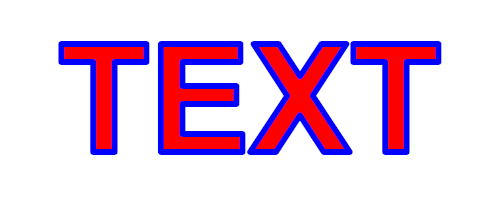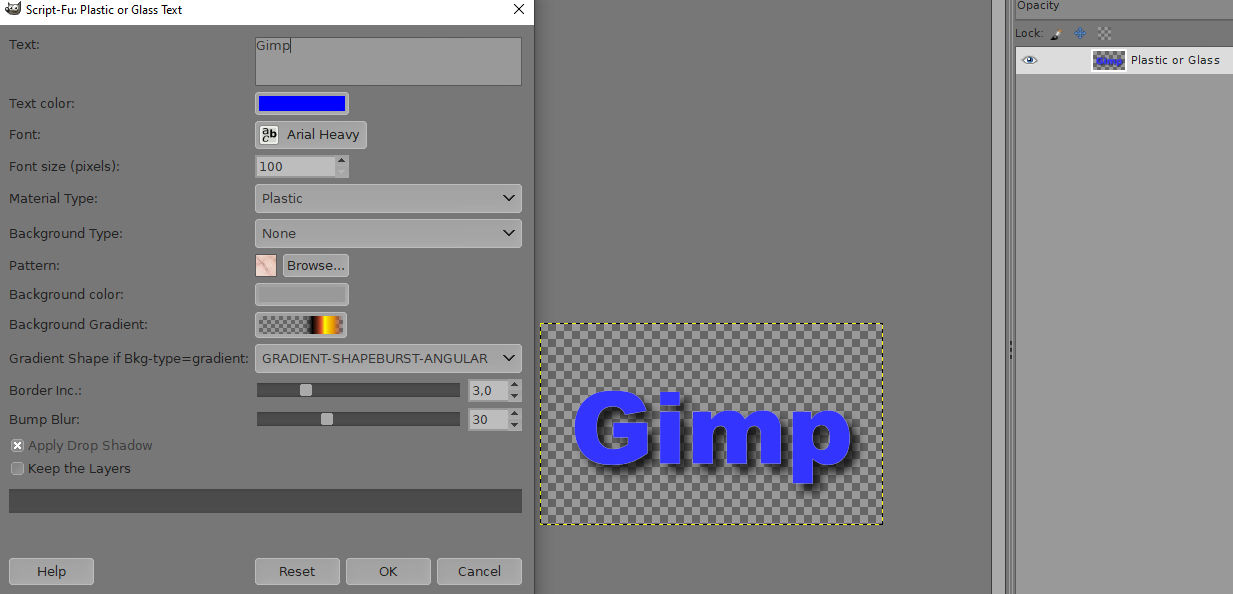
How do I make bubble font text?
I tried to follow these instructions but couldn't find anything under filters that says "Alpha to Logo". Does anyone know of another way to make bubble font?
"Alpha to Logo" filters were part of Gimp 2.8, no longer in 2.10
Do you have an example of the bubble font you want? Those instructions don't show the final result.
This general look, although I'm not going to have a sheen, outline, color or anything just solid black
The first one:-
1. Type some text with a font of your choice.
2. Right click the the text layer in the layers dialogue and select "Text to Path"
3. In the paths dialogue make the path visible.
4. Make a new transparent layer and make it active.
5. Do Edit > Stroke Path, using "Stroke Line". Set width. (Uses the foreground colour)
The second one:-
Use this Plastic Or Glass script (attached).
Once installed, you will find it under Filters > Alpha to Logo
If you own G'Mic Qt :
- type text on tranparent layer (black)
- G'Mic Qt
- Rendering / 3D Extrusion
- Colours / Colourise
- you can use levels or curves to correct
(12-17-2019, 01:02 PM)marigolden Wrote: Now though I'm thinking I do want an outline and color in the middle.
1. Create text using font and colour of your choice.
2. Right click text layer and select "Text to Path"
3. In the paths dialogue make the path visible.
4. Create a new transparent layer above the text.
5. Edit > Stroke Path (use Stroke Line) ; foreground colour will be used
6. Turn off path visiblilty
(7. Optional - move outline layer above or below the text layer - your choice)
Blighty, just put the Plastic Or Glas script in my scripts folder and this is the result if I ask for plastic :
If I undo after a few times after the scrip is done, I see 5 layers. If I switch the first two layers then I see a plastic font. (bug in the script ?)
If I select glas then is the result poor, there is only a little dark bump to see.
The script give no error